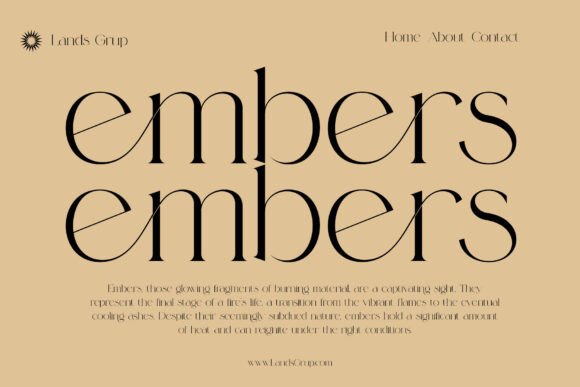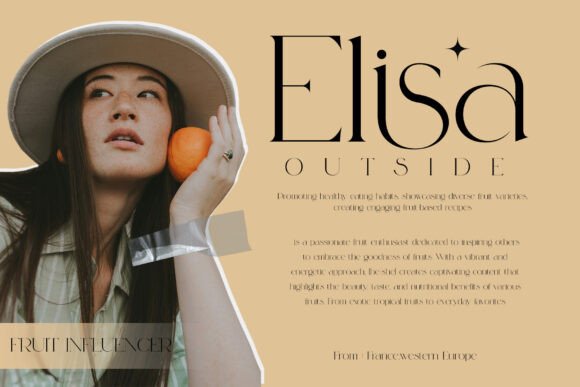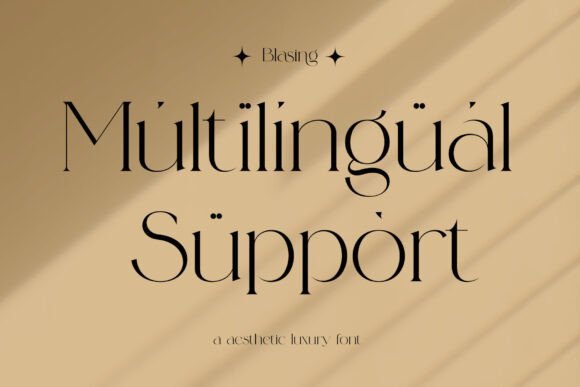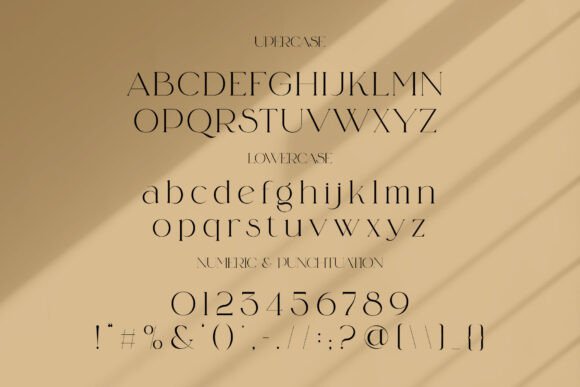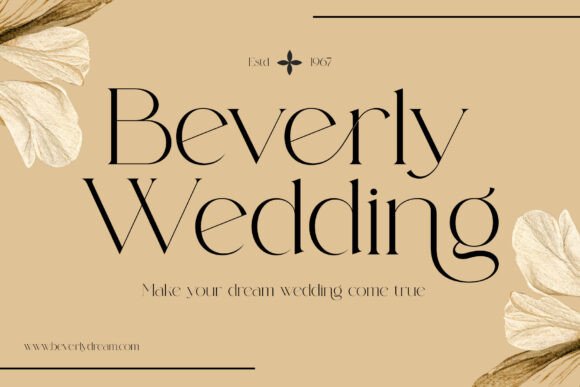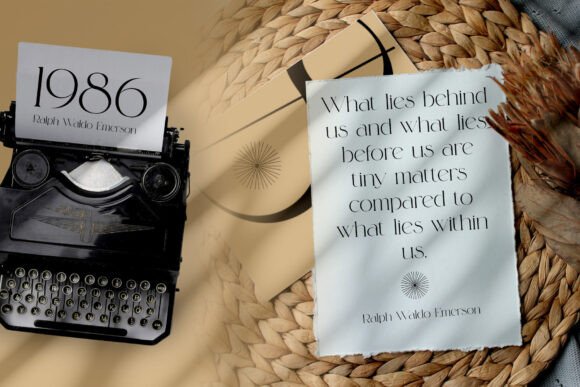
Introducing Blasing Font: The Epitome of Elegance and Sophistication
In the world of typography, few fonts manage to strike a balance between classic elegance and modern sophistication. Blasing Font is one such exceptional typeface that embodies the beauty of fresh blooms and timeless refinement. This elegant ligature serif modern font is designed to elevate upscale designs, making it perfect for florals, fashion, high-end branding, and more.
The Beauty of Blasing Font
Blasing Font is characterized by its bold yet refined ligatures, which set it apart as a sophisticated and feminine typeface. The font’s design is inspired by the charm of classic serif styles, but with a modern twist that gives it a fresh and contemporary feel. Every letter in the Blasing Font feels intentional, with a soft and graceful presence that instantly elevates any project it touches.
Perfect for Upscale Designs
Blasing Font is specifically designed for designers and crafters who strive for excellence in their work. Whether you’re creating a luxurious brand identity, designing a fashion magazine, or crafting a beautiful floral arrangement, Blasing Font is the perfect choice. Its elegant and refined aesthetic makes it ideal for projects that demand a high level of sophistication and poise.
Key Features of Blasing Font
- Elegant Ligature Serif Design: Blasing Font boasts a beautiful ligature serif design that exudes classic elegance and refinement.
- Bold yet Refined Ligatures: The font’s bold ligatures add a touch of sophistication, while its refined lines ensure a feminine and delicate feel.
- Modern Twist: Blasing Font skillfully blends traditional serif styles with a modern twist, making it perfect for contemporary designs.
- Soft and Graceful Presence: Every letter in the font has a soft and gentle presence, making it ideal for designs that require a touch of elegance.
Why Choose Blasing Font?
With so many fonts available, why choose Blasing Font for your next project? Here are just a few compelling reasons:
- Uniqueness: Blasing Font offers a unique blend of classic and modern elements, making it stand out from more traditional serif fonts.
- Versatility: The font’s elegant design makes it suitable for a wide range of projects, from luxury branding to fashion and floral designs.
- Easy to Read: Despite its elegant design, Blasing Font remains highly legible, making it perfect for body text and headlines.
- High-Quality Design: The font is crafted with attention to detail, ensuring a high-quality design that reflects professionalism and sophistication.
Tips for Using Blasing Font
To get the most out of Blasing Font, here are some expert tips:
- Pair with Neutral Backgrounds: Let Blasing Font shine by pairing it with neutral backgrounds that don’t compete for attention.
- Experiment with Ligatures: Take advantage of the font’s beautiful ligatures to add a touch of elegance to your designs.
- Use for Headlines and Body Text: Blasing Font’s legibility makes it suitable for both headlines and body text, allowing you to maintain consistency throughout your design.
Blasing Font is a stunning example of modern typography that combines classic elegance with a fresh, contemporary twist. Its elegant ligature serif design, bold yet refined ligatures, and soft, graceful presence make it the perfect choice for upscale designs. Whether you’re a designer, crafter, or simply someone who appreciates beautiful typography, Blasing Font is sure to inspire and elevate your projects.